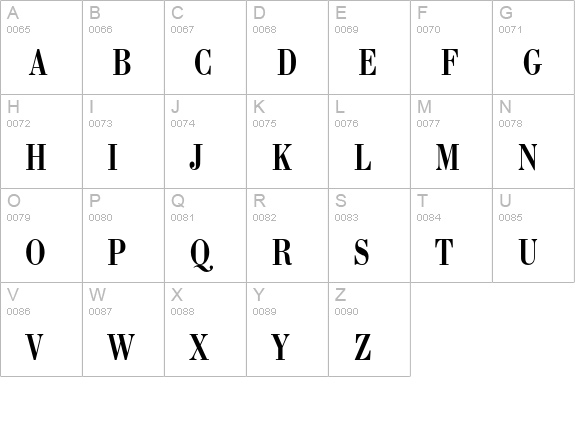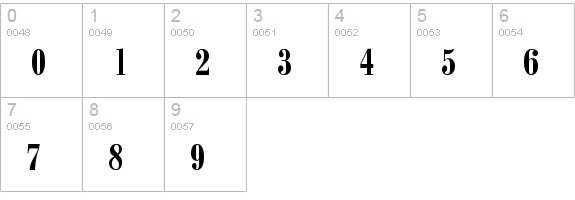
PT Bodoni Condensed Cyrillic is a distinctive, condensed-width variant in the PT typeface family \xE2\x80\x94 well suited to design and typography projects.
PT Bodoni Condensed Cyrillic is a sophisticated and elegant typeface with a touch of modern flair. Its sleek and condensed design makes it perfect for creating striking headlines, editorial designs, and branding projects. The Cyrillic characters add a unique touch, making this font suitable for diverse design projects. What makes PT Bodoni Condensed Cyrillic even more appealing is that it is available for free download at FontsMarket.com. This means you can easily access this beautiful font and use it in your projects without any cost. Embrace the timeless beauty of PT Bodoni Condensed Cyrillic in your designs and make a lasting impression with its classic yet contemporary aesthetic.